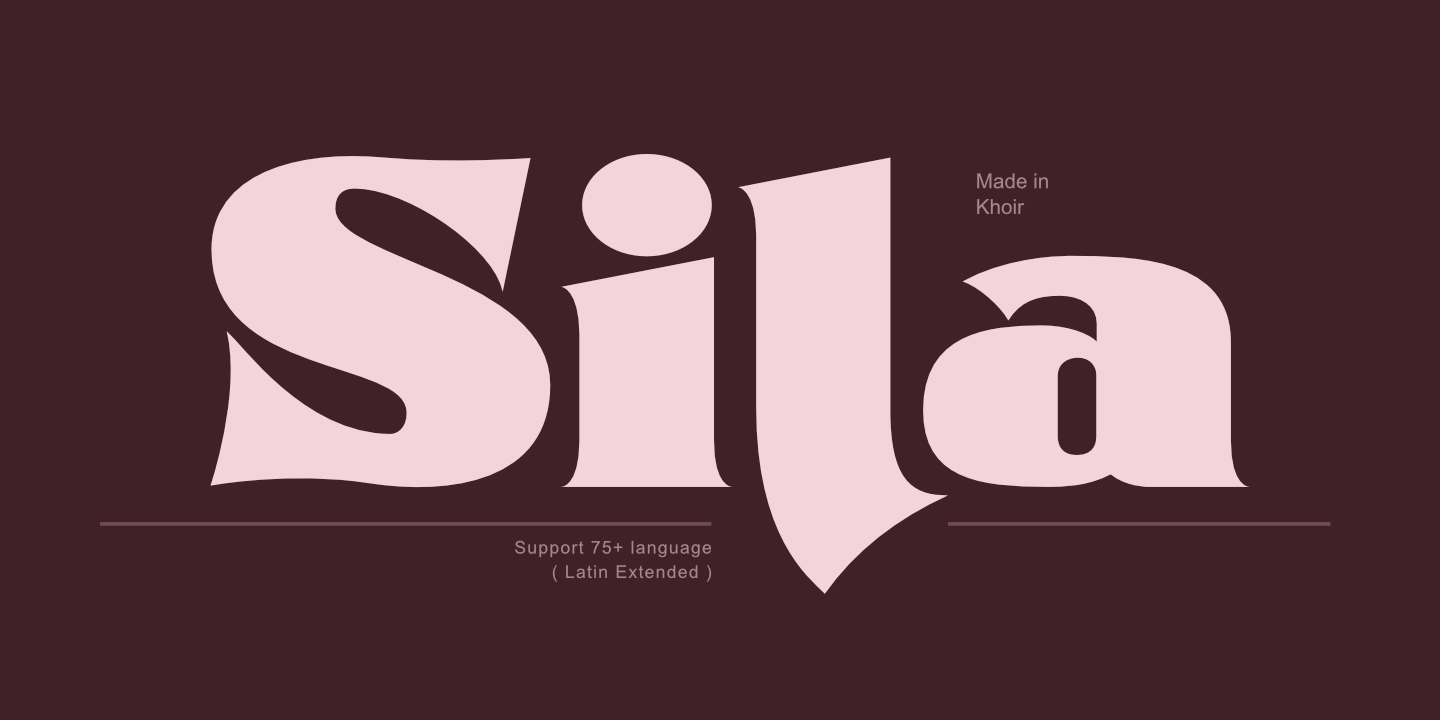
Sila Font is ideal for elegant design applications including contemporary brand identity, modern lifestyle marketing, sophisticated fashion branding, cultural arts materials, refined business communications, upscale beauty products, elegant web typography, and distinguished advertising campaigns that require typography with graceful character and contemporary sophistication.
What makes Sila Font exciting is its exceptional ability to convey refined elegance and modern sophistication through gracefully balanced letterforms that embody both timeless beauty and contemporary appeal. This distinguished typeface features flowing characteristics with gentle curves and harmonious proportions that instantly communicate grace, sophistication, and cultural refinement. The font's elegant personality and modern appeal make it perfect for brands seeking to establish sophisticated positioning and communicate values of grace, beauty, and contemporary excellence to discerning audiences.
Sila Font family encompasses multiple weights and elegant variations designed for comprehensive sophisticated communication. The family typically includes thin, light, regular, medium, bold, and black weights, complemented by graceful italics, elegant alternates, and extensive character sets with refined flourishes that enhance its sophisticated aesthetic and provide maximum elegance flexibility.
Contemporary designers consistently select Sila Font Free Download for projects requiring typography that embodies graceful sophistication and modern elegance. This refined typeface adapts beautifully across luxury applications, from digital fashion platforms to premium lifestyle materials, delivering consistent brand messaging with unmistakable elegant authority and sophisticated appeal. The font's gracefully crafted letterforms ensure exceptional readability while maintaining the refined presence that sophisticated brands demand. Elite creative agencies worldwide rely on this elegant typeface to communicate brand values of grace, sophistication, and contemporary excellence. Embrace graceful sophistication with Sila Font and create compelling visual communications that resonate with audiences who appreciate refined elegance, contemporary beauty, and the timeless appeal of gracefully sophisticated design that transcends trends while maintaining modern relevance.